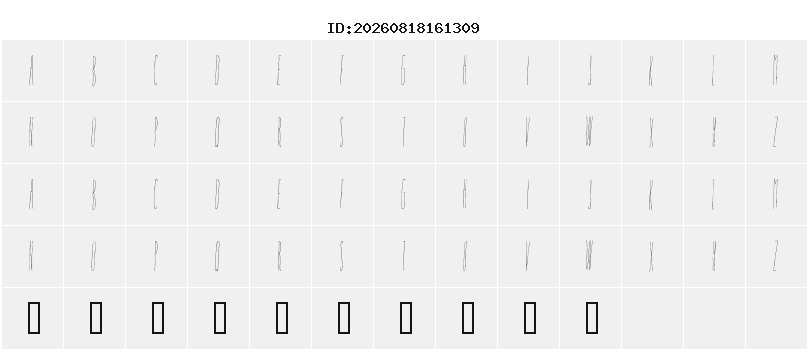
Sleeping on a Cloud Preview
• Font Name: Sleeping on a Cloud
• Full Font Name: SleepingonaCloud-Regular
• Character Count: 62
• Designer: =^_^=
About Sleeping on a Cloud.otf
Sleeping on a Cloud.otf is a modern, elegant sans-serif font designed for ultimate readability and visual harmony. Perfect for branding, headlines, web design, and print materials.